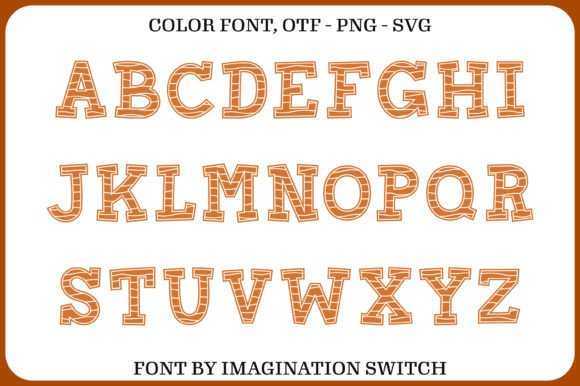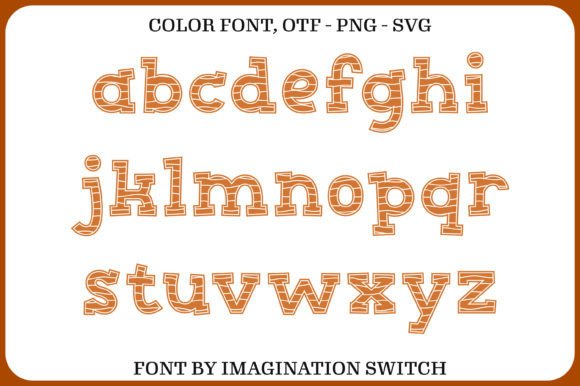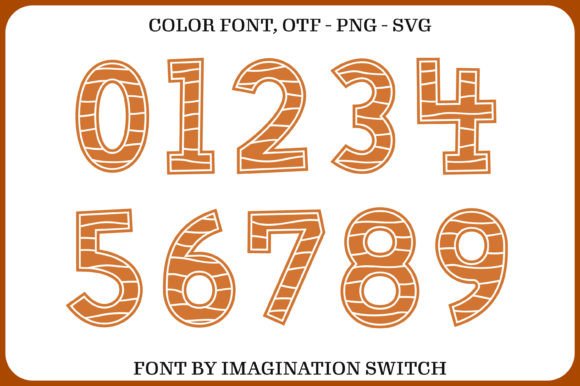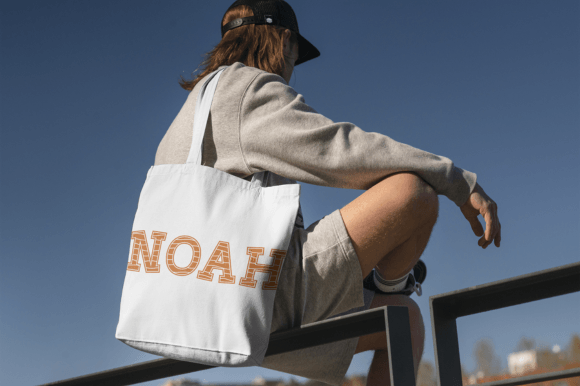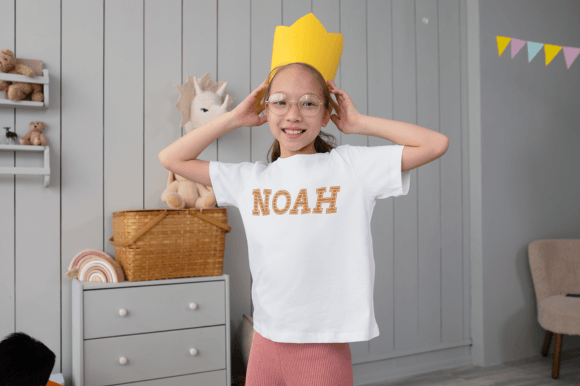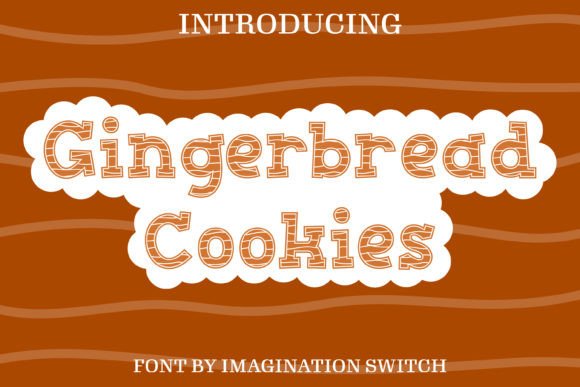
Gingerbread Cookies Font: A Deliciously Unique Typographic Creation
Are you tired of using the same old fonts in your designs? Look no further than the Gingerbread Cookies Font, a captivating typographic creation that is sure to add a touch of uniqueness and creativity to your projects. This font is not just any ordinary font – it’s a visually appealing, color-filled masterpiece that will make your designs stand out from the crowd.
A Complete Set of Characters
The Gingerbread Cookies Font is a comprehensive font that includes a complete set of characters, including uppercase, lowercase, and numbers. This means that you have the flexibility to use it for a wide range of projects, from print designs to web designs, promotional materials, and more. Whether you’re creating a festive holiday card or a professional brochure, this font has got you covered.
Intriguing Colors for Visual Appeal
One of the standout features of the Gingerbread Cookies Font is its use of intriguing colors to enhance its visual appeal. Each character has been carefully designed with a unique color scheme that adds a mesmerizing visual touch to your designs. This means that every word and number will stand out, making your message more engaging and memorable.
Suitable for a Wide Range of Purposes
The Gingerbread Cookies Font is an incredibly versatile font that can be used for a wide range of purposes. Its excellent legibility and visually appealing presentation make it an ideal choice for enhancing the visualization of your message. Whether you’re a designer, crafter, or DIY enthusiast, this font is perfect for anyone looking to add a touch of creativity and uniqueness to their projects.
As a designer or crafter, you’re always on the lookout for new and exciting ways to make your projects stand out. The Gingerbread Cookies Font is the perfect solution. Its unique color scheme and visually appealing design make it perfect for a wide range of projects, from paper crafting to vinyl cutting. Plus, the black version of this font is compatible with Cricut Design Space and other cutting machines, making it easy to incorporate into your workflow.
Express Your Creativity
With the Gingerbread Cookies Font, you can express your creativity in every project you undertake. This font is all about crafting unforgettable designs with a unique color touch. Whether you’re creating a festive holiday card or a professional brochure, this font gives you the freedom to experiment with different colors and designs, making every project a masterpiece.
In conclusion, the Gingerbread Cookies Font is a unique and captivating typographic creation that is sure to add a touch of creativity and uniqueness to your designs. With its complete set of characters, intriguing colors, and versatility, this font is perfect for designers, crafters, and DIY enthusiasts alike. So why settle for ordinary fonts when you can have a font that stands out from the crowd? Try the Gingerbread Cookies Font today and take your designs to the next level!
- Complete set of characters, including uppercase, lowercase, and numbers
- Intriguing colors for visual appeal
- Suitable for a wide range of purposes, including print designs, web designs, promotional materials, and more
- Excellent legibility and visually appealing presentation
- Perfect for designers, crafters, and DIY enthusiasts